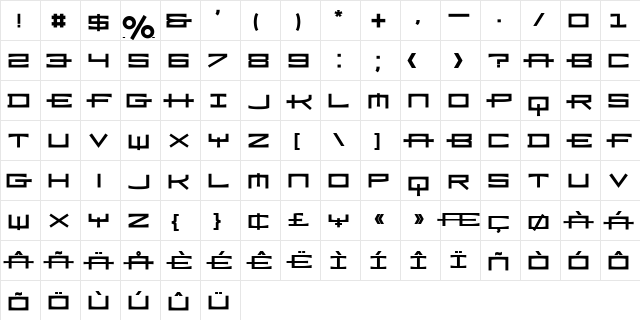
Ramiz Bold
Design Context for Ramiz Typeface
Ramiz is a composed and adaptable typeface that performs quietly and consistently across a wide range of design contexts. The heavy weight commands attention and anchors typographic hierarchies.